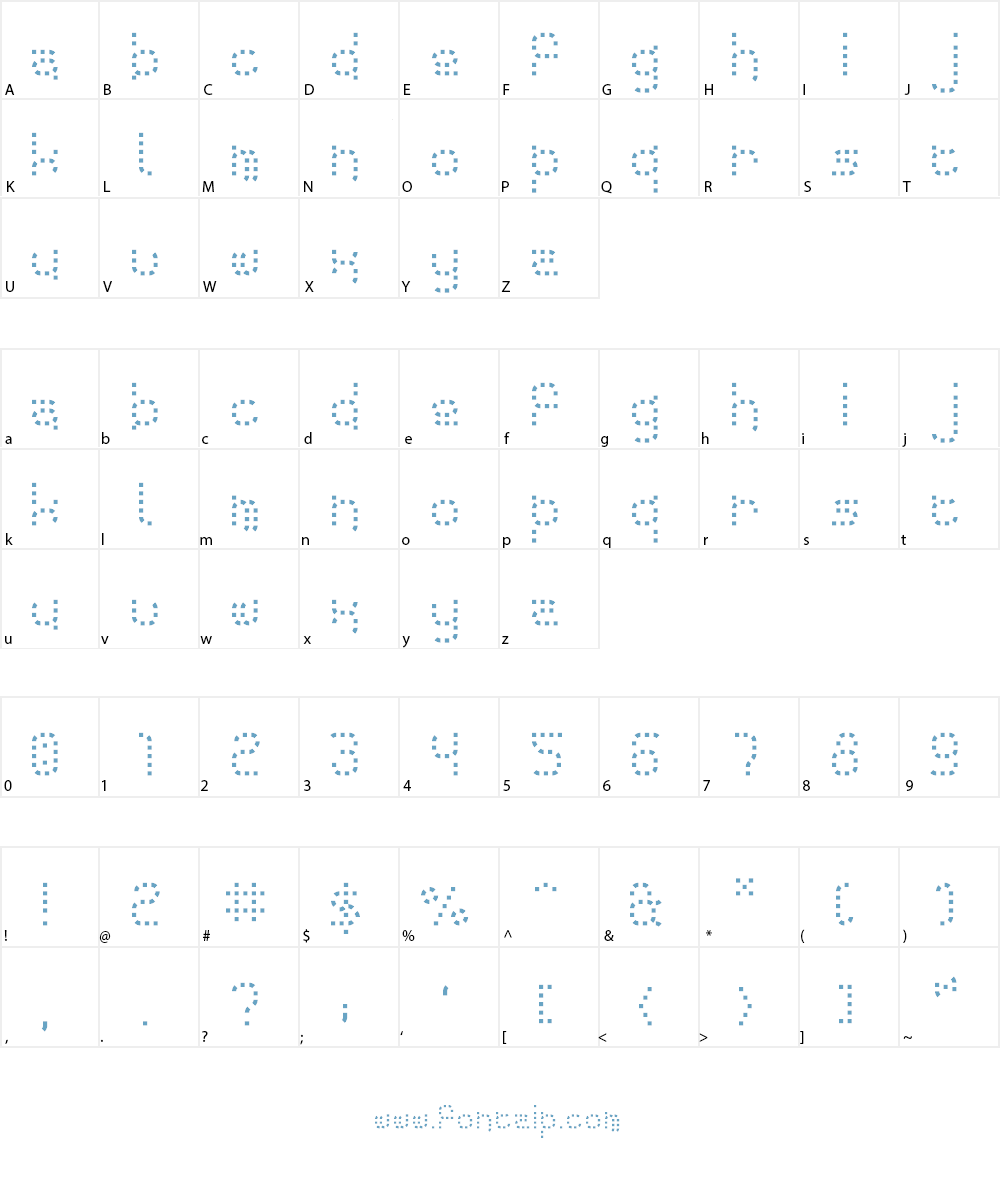
A dashed line design. The emphasized spurs/stems and off-kilter geometry give it a quirky, almost handwritten quality. Its striped appearance makes me think of candy as well as the Cheshire Cat, thus the name!